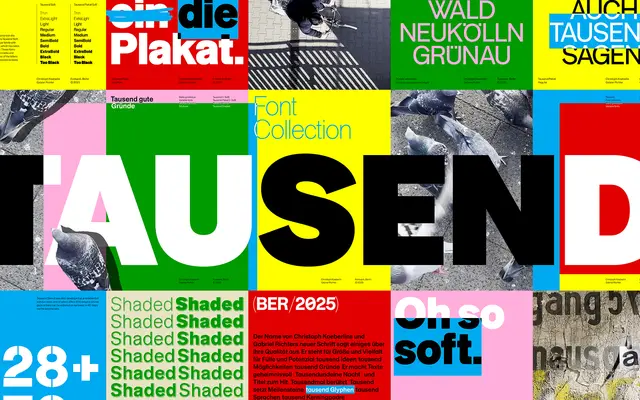
Tausend Collection
Tausend Collection specimen from Fontwerk
A six-family display grotesque collection spanning soft, stencil and shaded variants across a ten-weight range up to TooBlack.
Described by Fontwerk as a homage rather than a revival, the collection covers six sub-families: the base Tausend, a Plakat variant optimised for large-scale setting, softened Soft and Plakat Soft cuts, a Stencil and a Shaded. Ten weights run from Thin through to TooBlack across most families, giving considerable range for poster, headline and display work. The decorative Shaded and Stencil variants extend the collection into more expressive territory while the Soft cuts offer a warmer, less rigid alternative to the standard grotesque forms.
Tausend is a display-oriented grotesque with multiple decorative variants including Stencil and Shaded cuts, clearly positioned as a headline and poster typeface rather than text use, with the Plakat subfamily reinforcing its large-scale application.